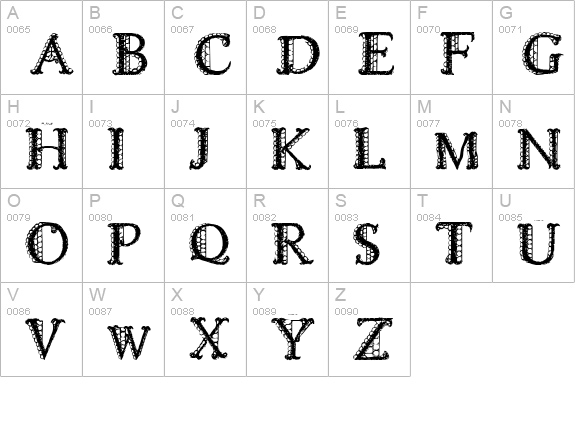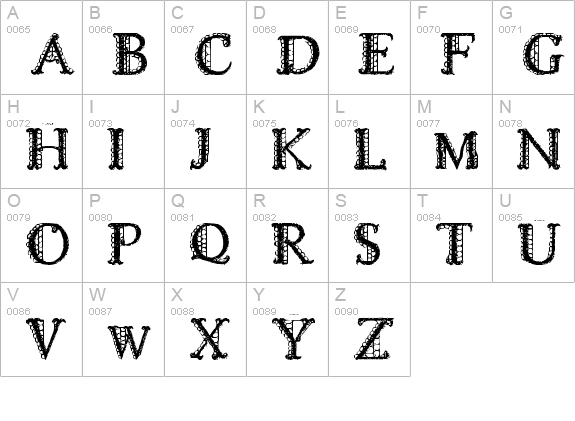
LACETRIM font is a delicate and elegant typeface that adds a touch of sophistication to any design project. With its intricate and intricate details, LACETRIM font is perfect for creating stunning wedding invitations, beautiful logos, and captivating headlines. The flowing curves and graceful lines of LACETRIM font give it a timeless and classic appeal, making it suitable for both modern and vintage designs. Its versatility allows it to be used in various contexts, from fashion and beauty to home decor and stationery. What makes LACETRIM font even more appealing is that it is available for free download at FontsMarket.com. This means that you can easily access this amazing font without any cost, making it a valuable asset for designers, hobbyists, and anyone looking to add a touch of elegance to their projects. Whether you are a professional designer or a DIY enthusiast, LACETRIM font offers you the opportunity to create stunning and visually appealing designs effortlessly. Don't miss out on this incredible font that is freely available for download at FontsMarket.com.